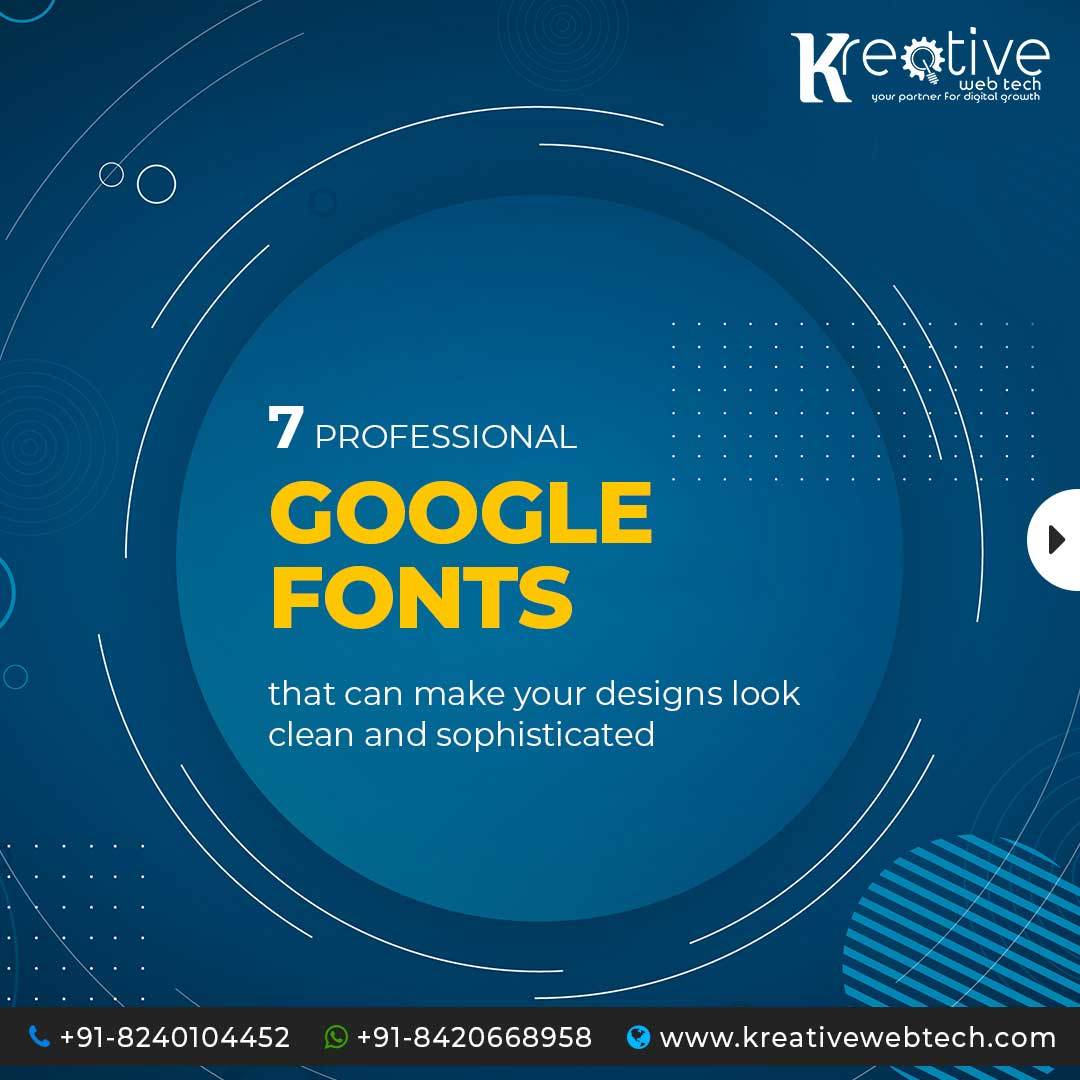
Looking for new professional fonts for your next project?
Here are 7 Google fonts that can make your designs look clean and
sophisticated
Poppins
18 families
a) shows warmth
b) suitable for long text content
c) suitable for titles in capital letters
Montserrat
18 families
a) simple, geometric and elegant
b) versatile
c) used in multiple domains
Roboto
18 famiies
a) 3 alternatives (Roboto Condensed, Roboto Slab, Roboto Mono)
b) large choice of styles
Lato
10 families
a) Shows hermony & elegance
b) Sleek & simple design
Ubuntu
8 families
a) 2 alternatives (ubuntu condensed, ubuntu mono)
b) clear on desktop and mobile computing screens
Raleway
Variable
a) Elegant
b) Sharp and functional
Mulish
Variable
a) Designed for both display and text typography
b) Versatile & minimalistic